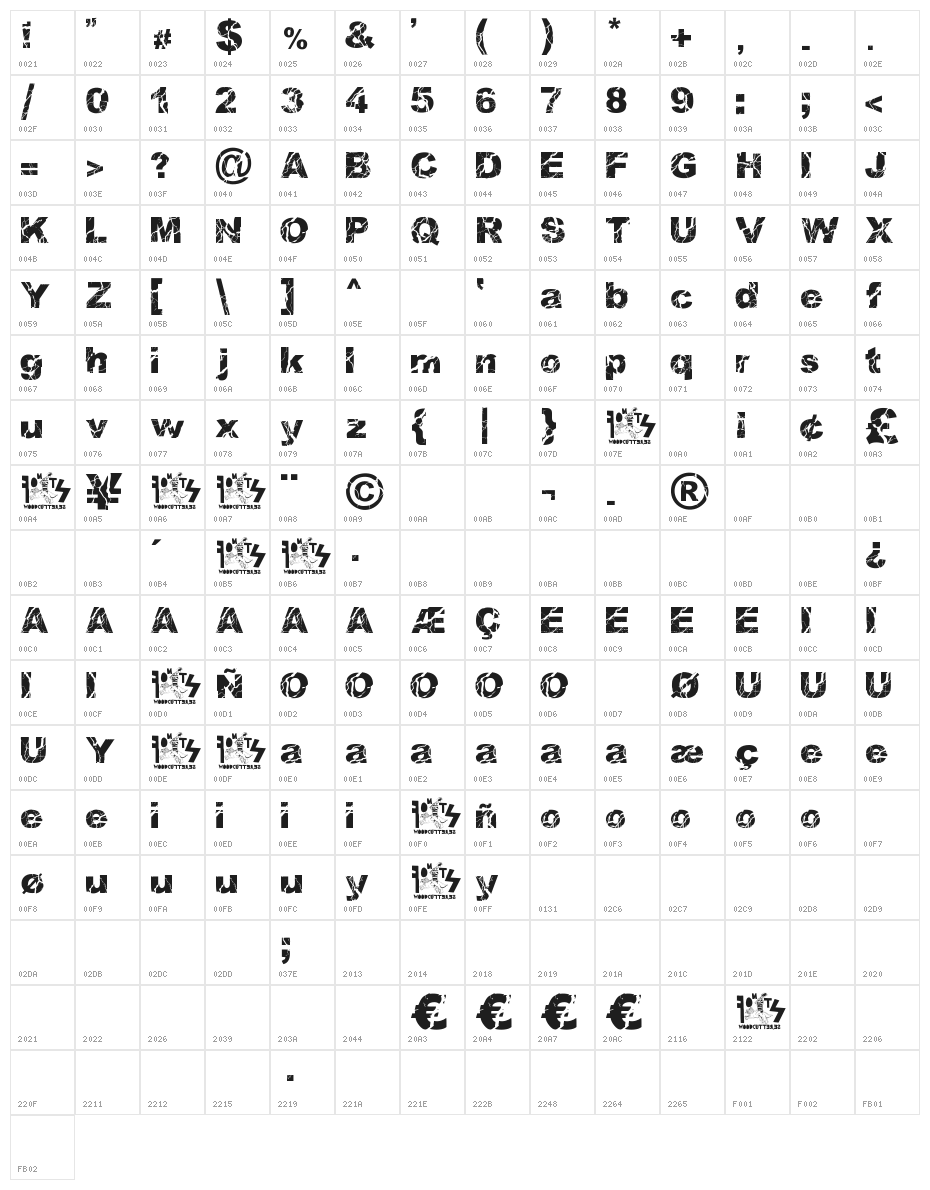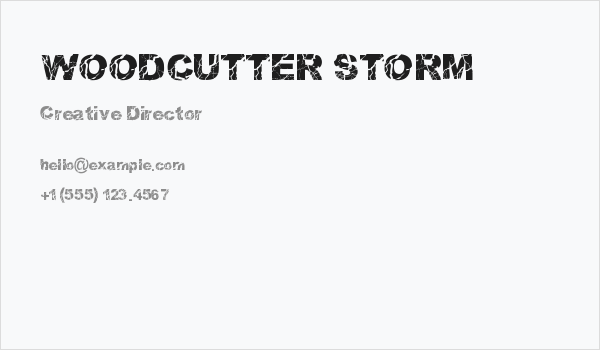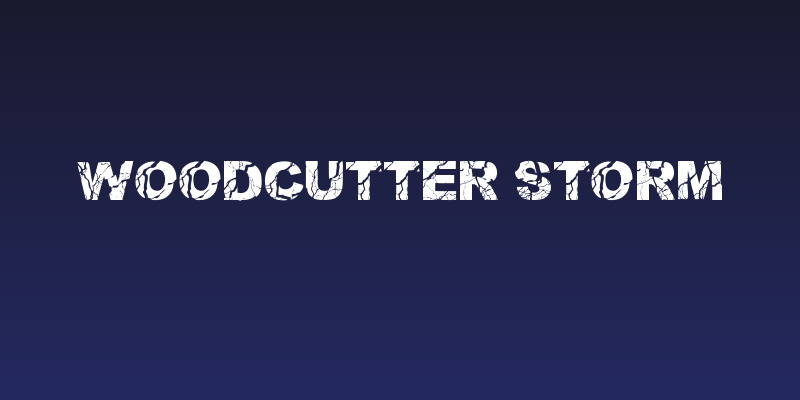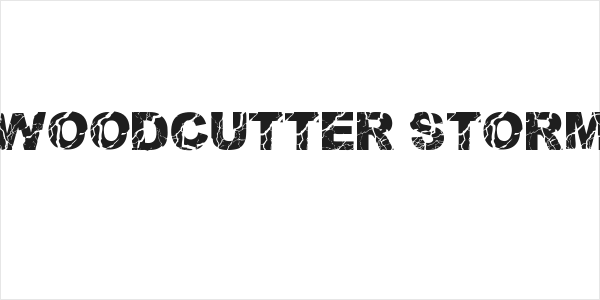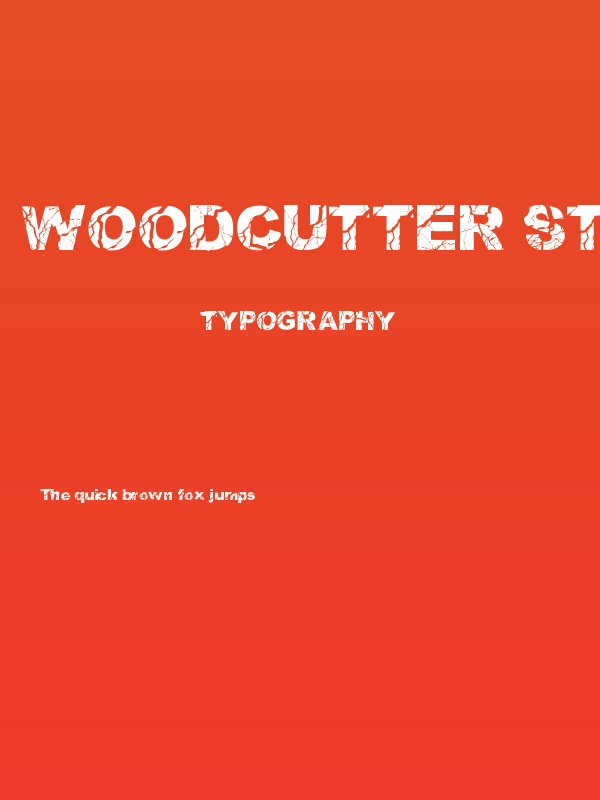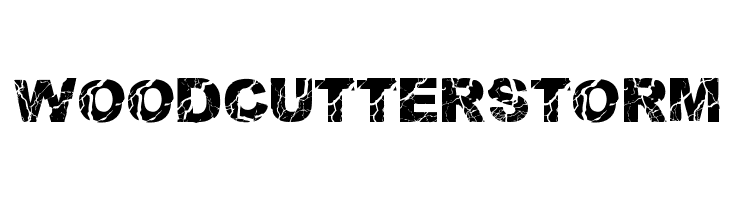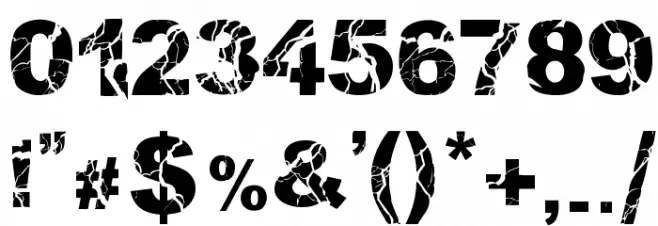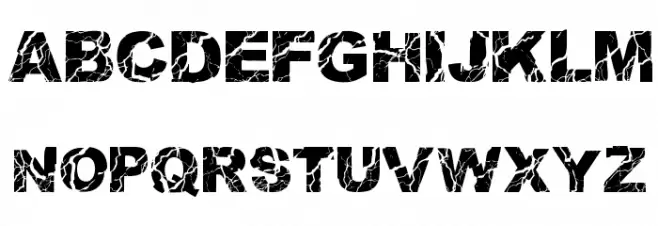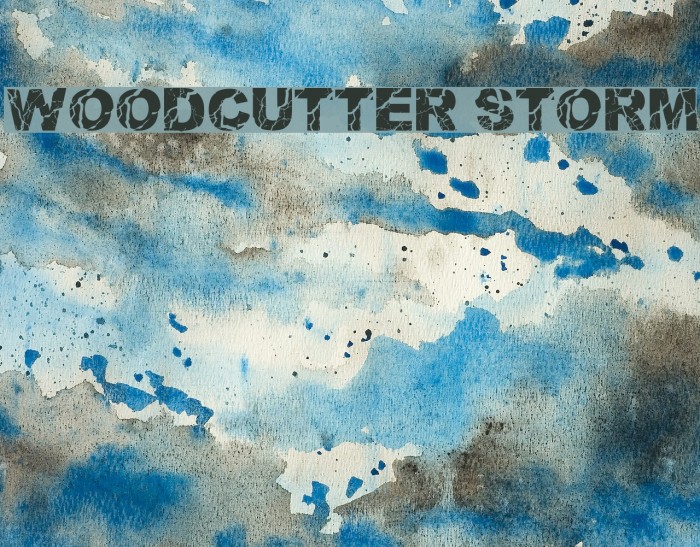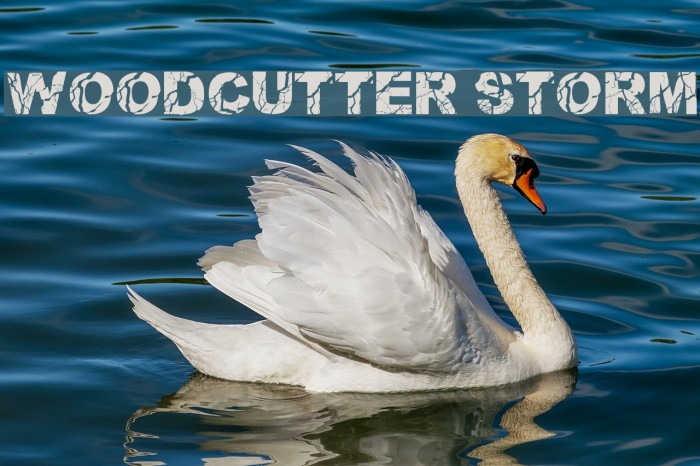
WOODCUTTER STORM Font
WOODCUTTER STORM Description
This font features a bold, distressed style with a cracked texture that gives it a rugged, weathered appearance. The characters are uppercase and lowercase, with numerals and a variety of special symbols. The design is highly decorative, making it stand out with its unique, stormy aesthetic. The boldness of the font ensures visibility, while the intricate detailing adds a layer of complexity and interest. This font is ideal for projects that require a dramatic and impactful visual element.
| Proposed Projects | Ideal for posters, album covers, branding for edgy products, or any project needing a dramatic, eye-catching typeface. |